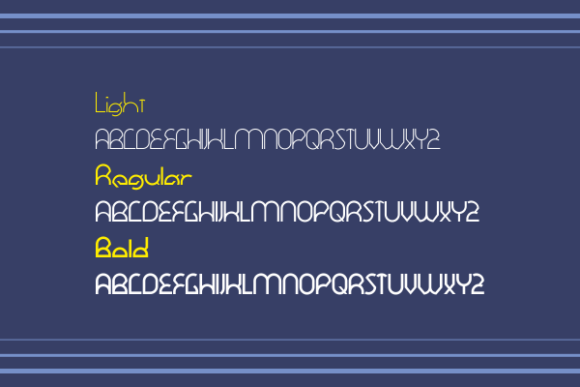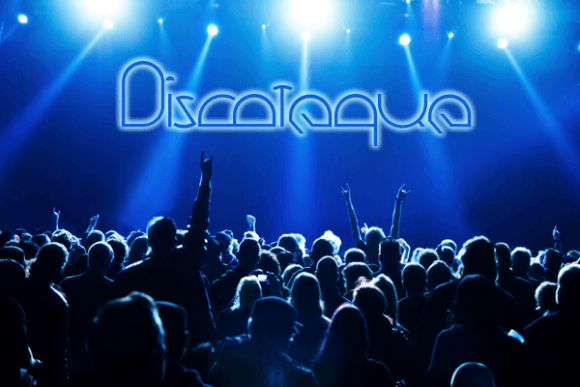
Introducing Dawner Font: A Modern Sans Serif Marvel
In the realm of typography, few fonts manage to strike a balance between aesthetics and usability. However, Dawner Font, crafted by the innovative designer Alberto Villanueva, is a notable exception. This contemporary sans serif font is meticulously designed to cater to a wide array of design needs, making it a versatile tool for designers and crafters alike.
The Design Philosophy Behind Dawner
Dawner is not just another addition to the sans serif family; it’s a thoughtfully designed typeface that embodies the principles of modern design. Its creator, Alberto Villanueva, envisioned a font that would offer a fresh perspective on sans serif typography, focusing on clarity, legibility, and style. The result is a font that exudes a sense of modernity and sophistication, making it perfect for a variety of applications.
Key Features of Dawner Font
- Three Distinctive Weights: Dawner offers three weights – Light, Regular, and Bold – allowing designers to choose the perfect weight to convey their message. Whether it’s for a subtle background text or a bold headline, Dawner provides the flexibility needed to create visually appealing designs.
- Versatility Across Mediums: Understanding the diverse needs of modern designers, Dawner is designed to be versatile. It includes web fonts and vector formats, ensuring that it can be seamlessly integrated into both print and digital media. This versatility makes Dawner an invaluable asset for designers working across various platforms.
- Modern and Striking Clarity: Each character in Dawner is crafted to deliver a modern, striking clarity. This makes it an excellent choice for designs where readability is paramount, such as in editorial layouts, websites, and marketing materials.
Applications of Dawner Font
The flexibility and aesthetic appeal of Dawner make it suitable for a myriad of design projects. Here are a few examples:
- Web Design: For minimal website designs or blogs, Dawner can add a touch of elegance and modernity. Its web font versions ensure that it looks great across all devices and browsers.
- Editorial Design: In magazines, newspapers, or editorial spreads, Dawner’s bold weight can make for compelling headlines, while its light weight is perfect for body text.
- Branding and Marketing: For brands looking to make a statement, Dawner offers a contemporary look that can help brands stand out. Its clarity and legibility make it an excellent choice for signage, packaging, and advertising materials.
Why Choose Dawner Font?
In a sea of typefaces, Dawner stands out for several reasons:
- Unique Aesthetic: Dawner brings a fresh aesthetic to the sans serif category, making it a great choice for designers looking for something new and different.
- High Legibility: Its design prioritizes legibility, ensuring that text remains clear and readable across various sizes and applications.
| Font Name | Dawner Font |
| Author | Wakoletras |
Dawner Font is more than just a typeface; it’s a design tool that combines functionality with style. Its creation by Alberto Villanueva represents a significant contribution to modern typography, offering designers a versatile, legible, and aesthetically pleasing font suitable for a wide range of projects. Whether you’re working on a minimal website, a bold editorial design, or any project in between, Dawner is poised to deliver clarity, style, and impact.